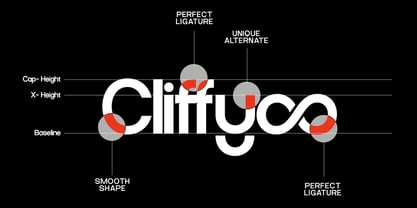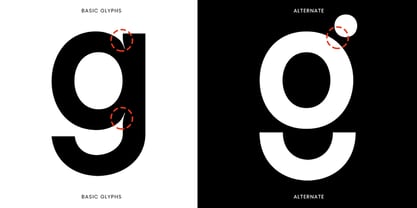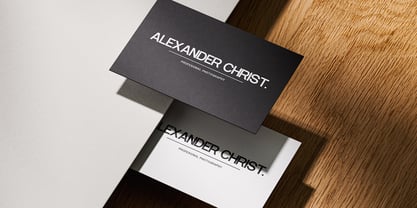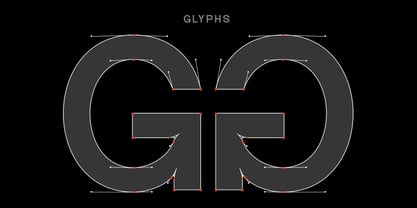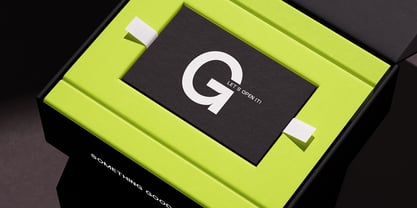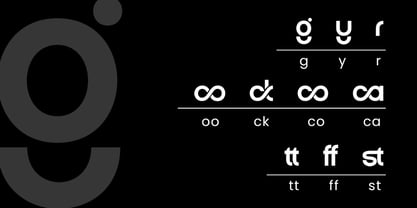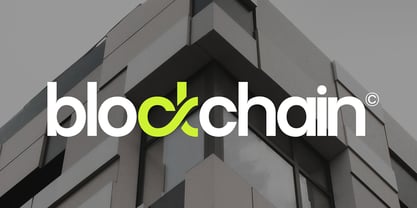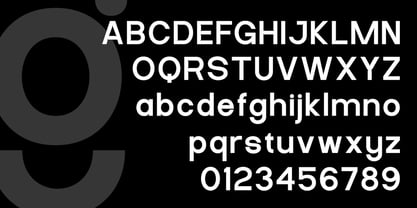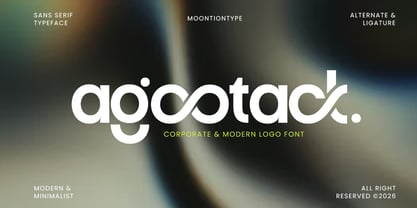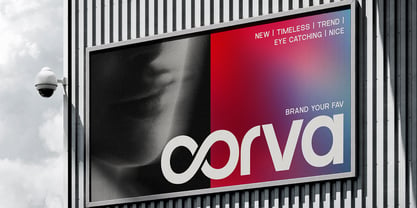
Agootack
by Moontiontype
The Agootack Font Family was designed by Dinda Nur Dwiyanti and published by Moontiontype. Agootack contains 1 styles. More about this family
Agootack is a modern and minimalist sans serif typeface crafted for clean, professional, and futuristic designs. Featuring smooth curves, unique letterforms, and stylish ligatures, Agootack delivers a fresh and distinctive look that stands out in any project. Designed with a corporate and contemporary aesthetic in mind, this font is perfect for branding, logo design, and modern visual identities. Its balance between simplicity and character makes it highly versatile for both digital and print use. Agootack includes elegant alternates and ligatures, allowing you to create unique and custom typography with ease. Whether you're working on a sleek logo, a tech startup brand, or a modern editorial layout, this font provides a refined and stylish finish. Perfect For Logo design Corporate branding Modern business identity Minimalist design Tech & startup projects Editorial layouts Social media graphics Website typography Packaging design Agootack is the perfect choice for designers who want a modern, clean, and professional font with a unique personality. Ideal for creating strong and elegant brand identities. Thank You Moontiontype
Designers: Dinda Nur Dwiyanti
Foundry: Moontiontype